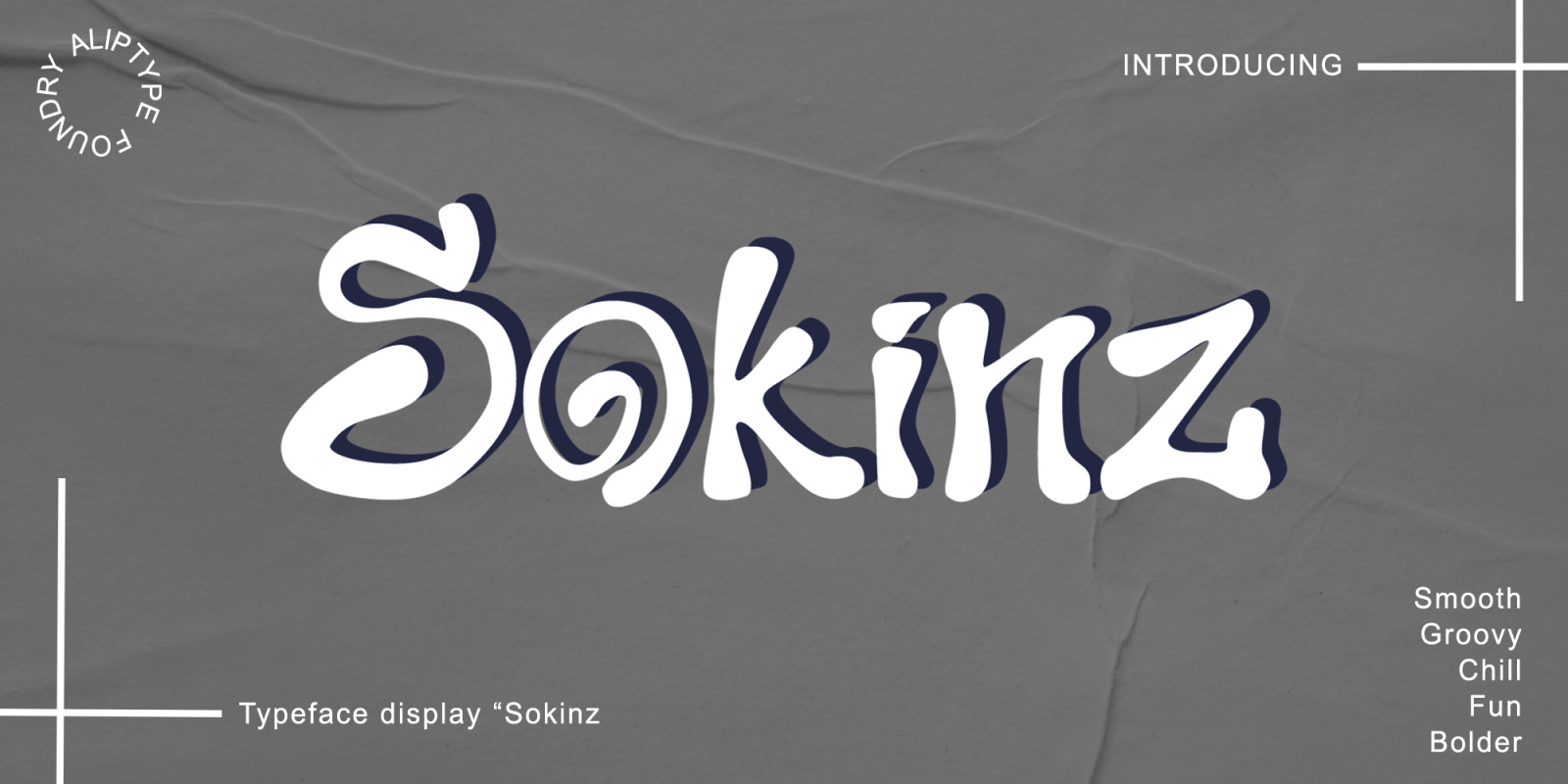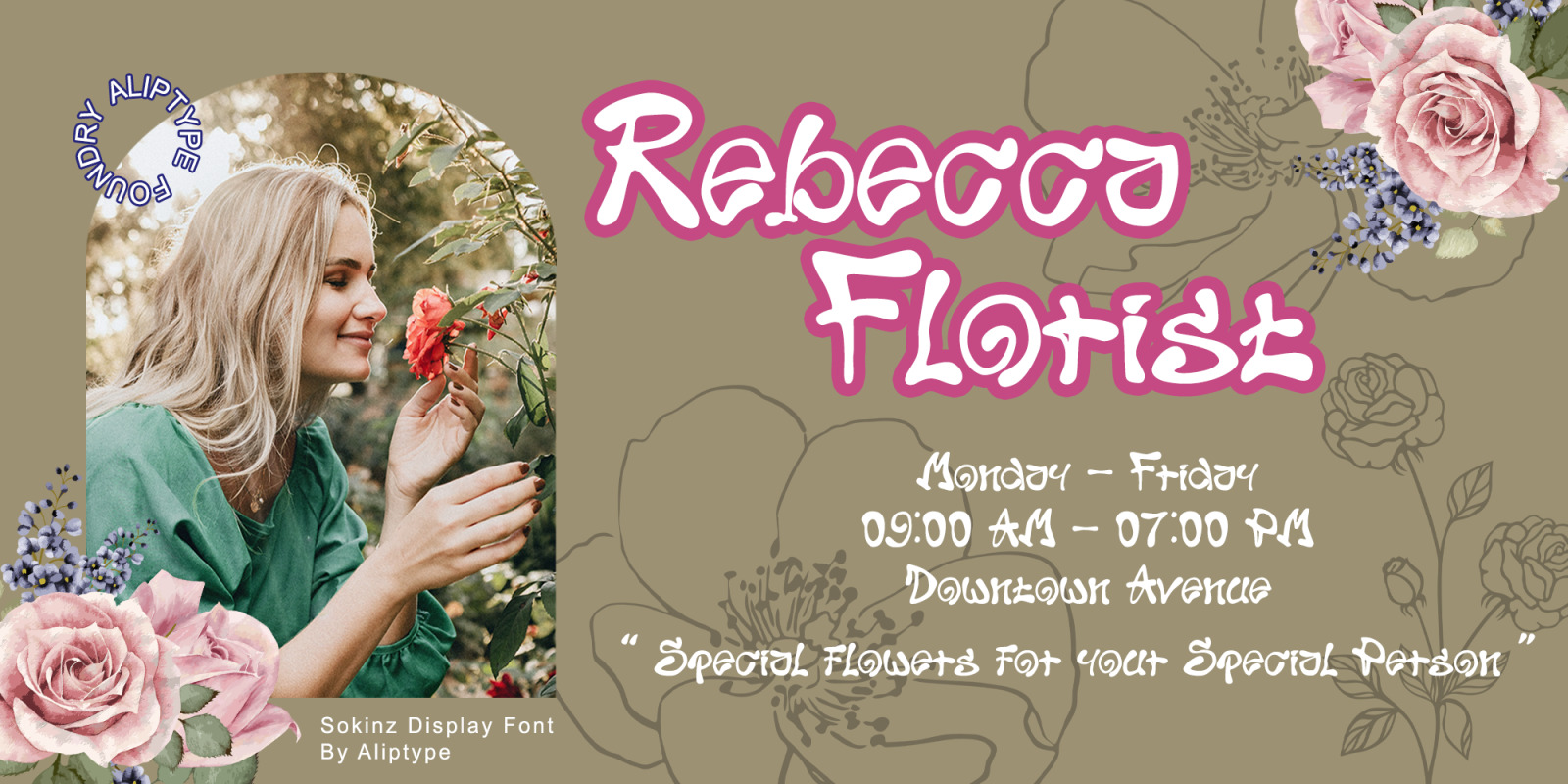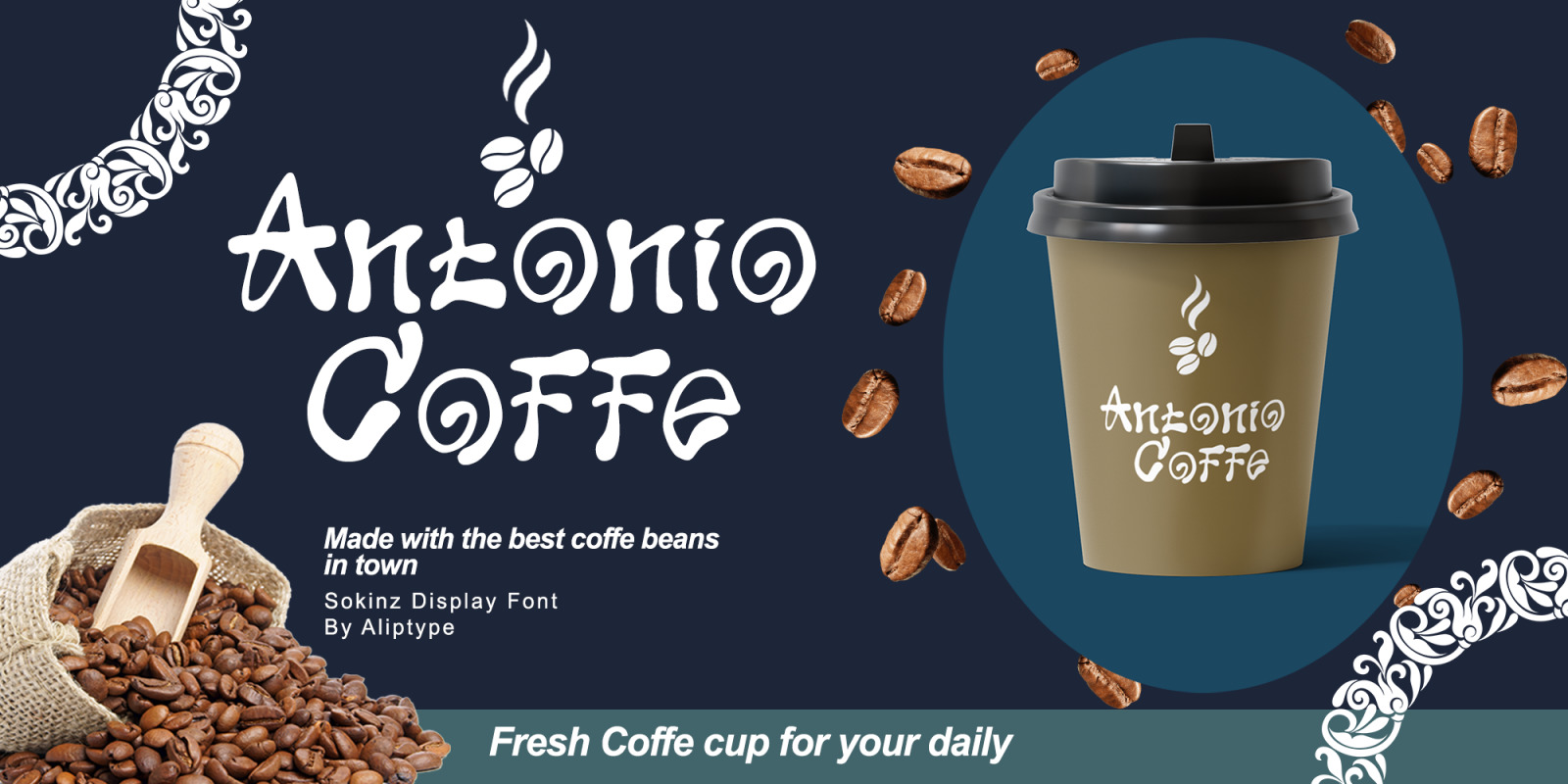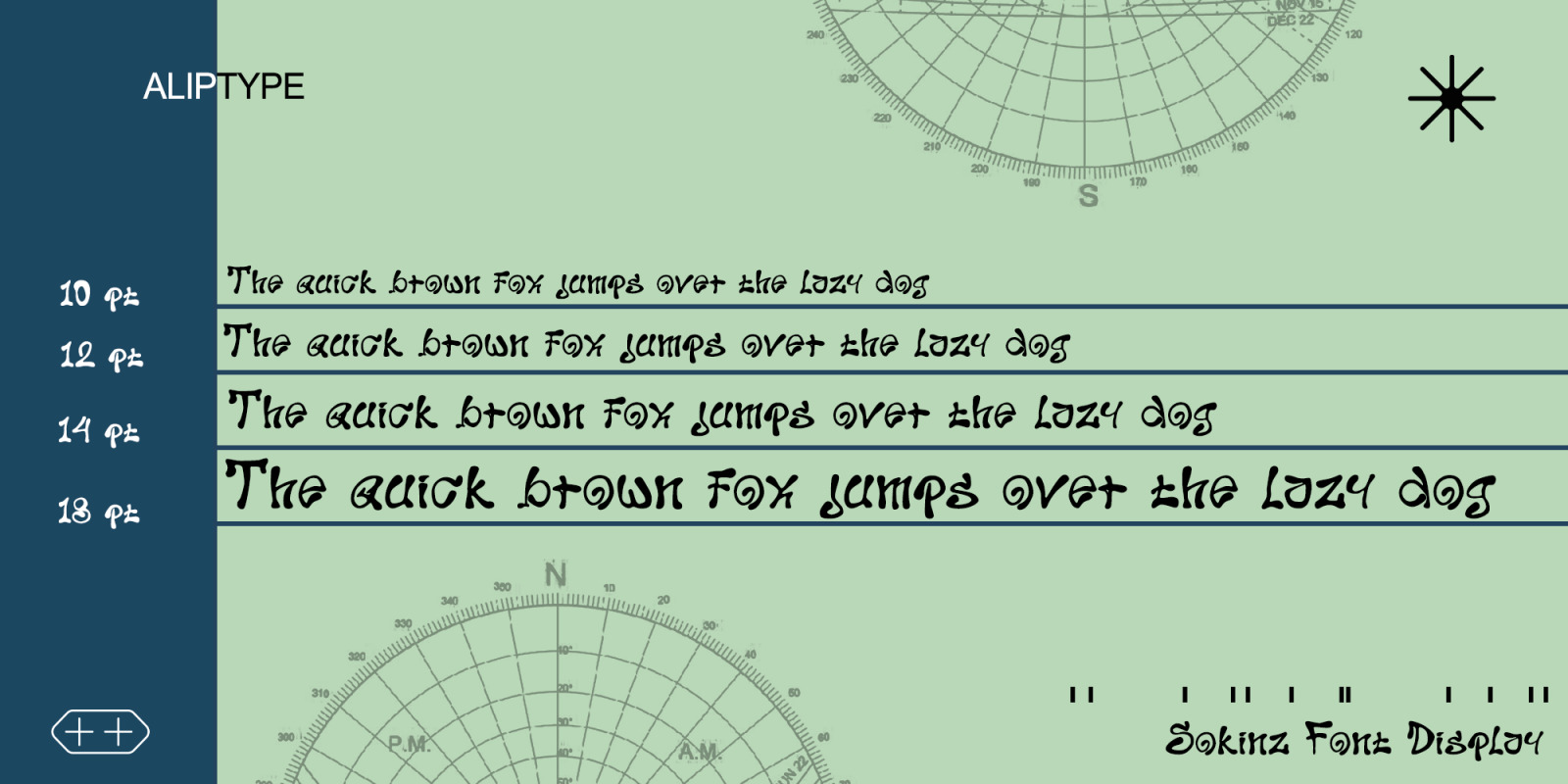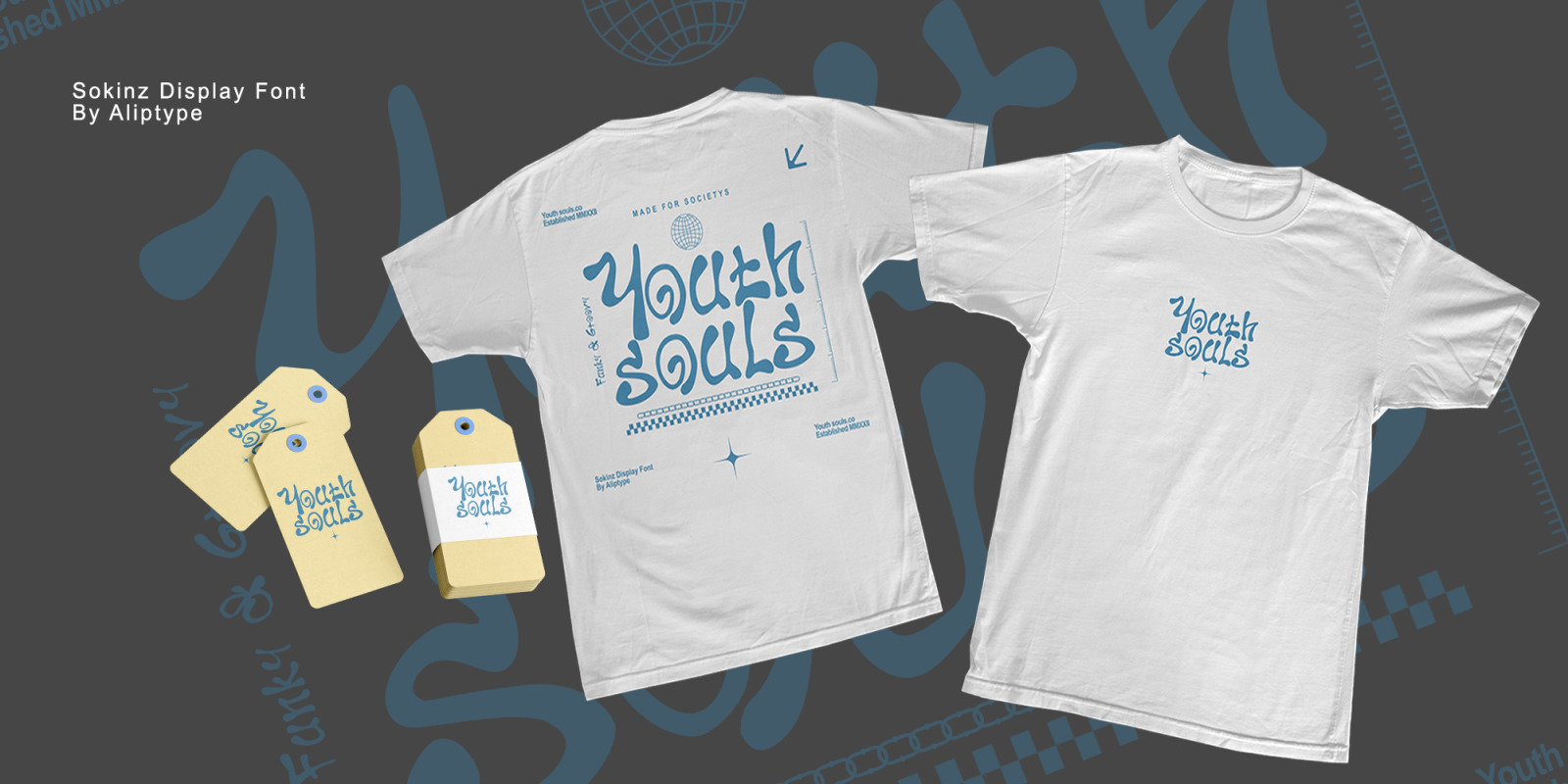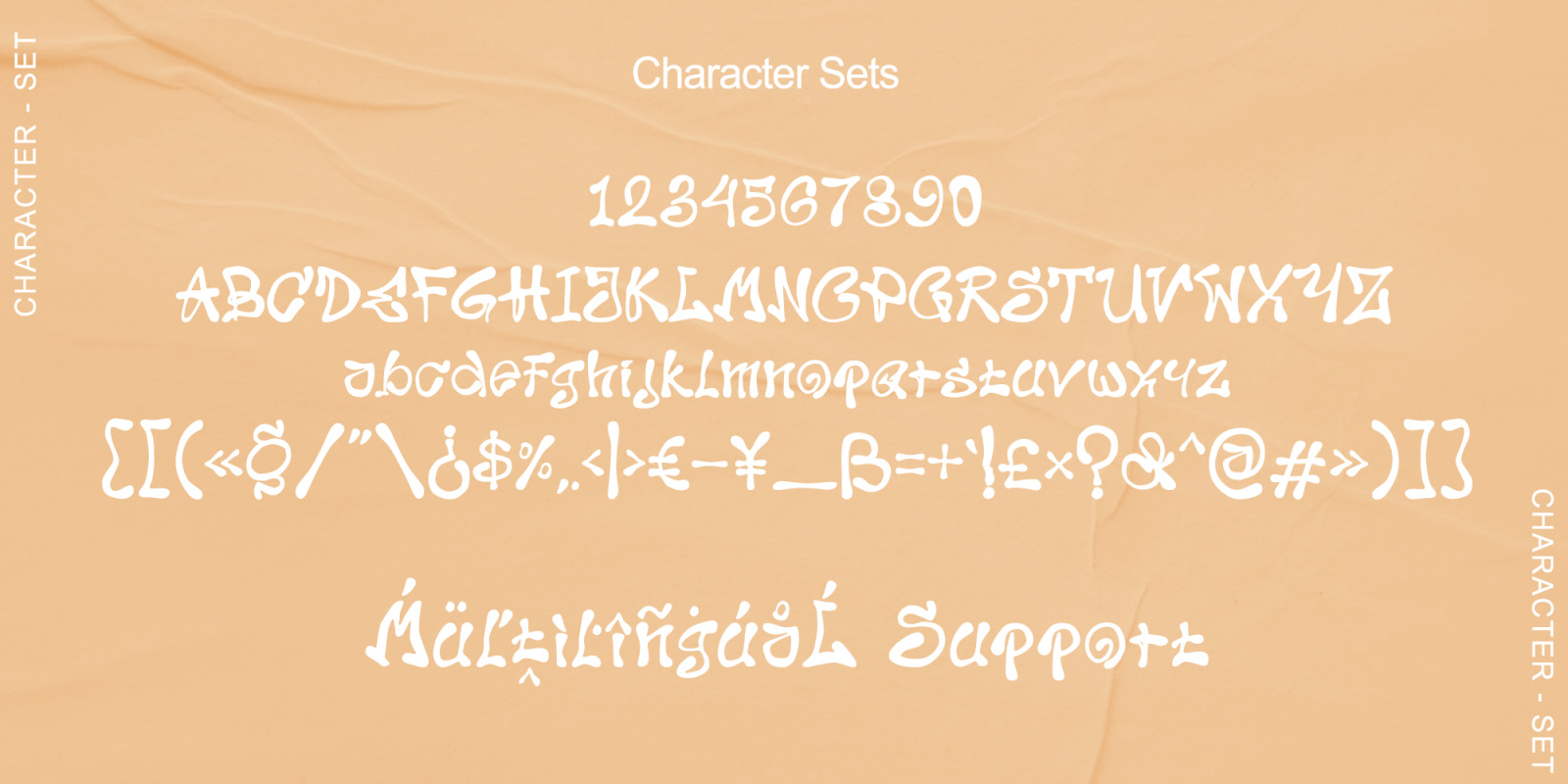
Sokinz Font
Introducing Sokinz
Sokinz was round shapes, funky and playful fonts, made carefully with handwritten by combining two concepts of graffiti style and groovy styles. Use this font for your creative design, this font was suitable to make posters, pamphlets, t-shirt, merch, apparel, brand names, gift cards, products tags, and many more can be discovered by using this font.
26 Uppercase
26 Lowercase
Multilingual supports
Numerics and Punctuation